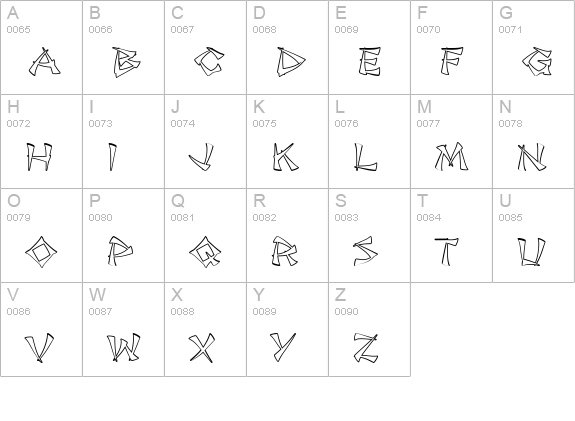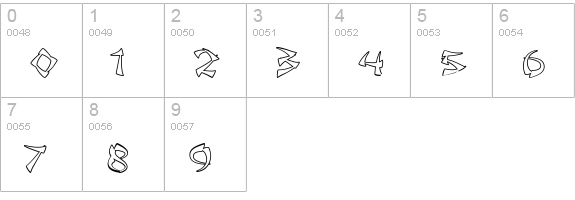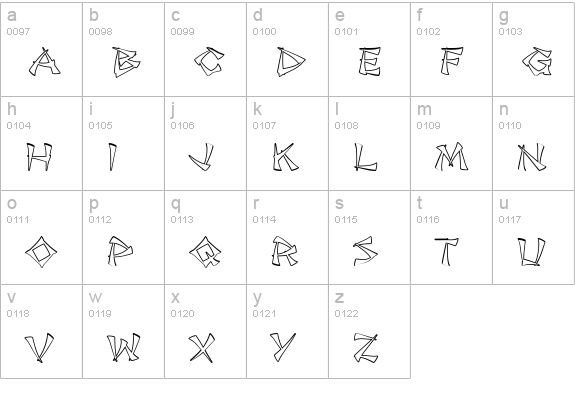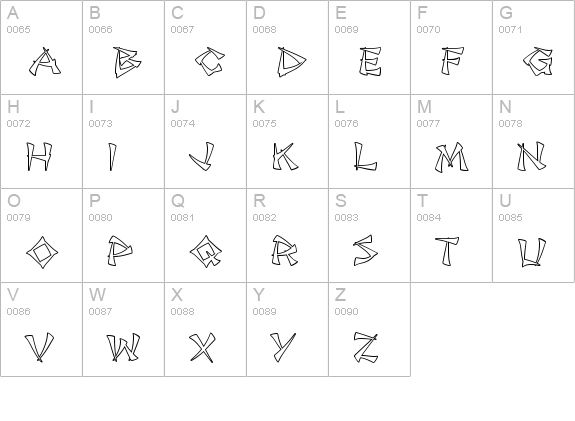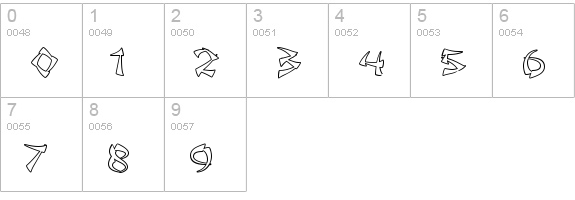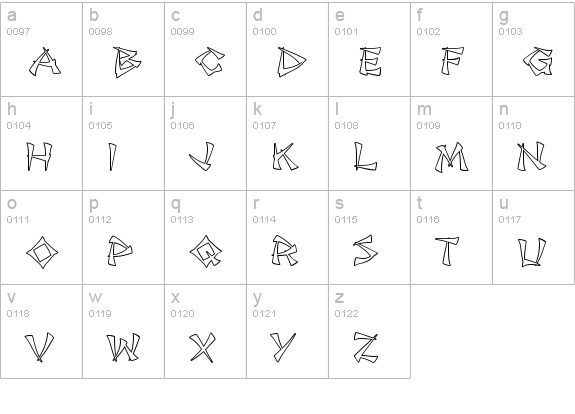
The Jade Monkey BTN Outline font is a stunning display typeface that is sure to catch the eye and add a touch of elegance to any design project. With its intricate and beautifully crafted outline style, this font exudes a sense of sophistication and modernity. What sets the Jade Monkey BTN Outline font apart is not only its exquisite design, but also the fact that it is available for free download. That's right, you can easily get your hands on this amazing font without having to spend a dime. Simply head over to FontsMarket.com, where you can freely download the Jade Monkey BTN Outline font and start using it in your creative endeavors. Whether you're designing a logo, creating a brand identity, or working on a poster or flyer, the Jade Monkey BTN Outline font will add a touch of uniqueness and professionalism to your project. Its clean lines and precise outlines make it highly versatile and suitable for a wide range of design purposes. The Jade Monkey BTN Outline font is designed with legibility in mind, ensuring that your message is communicated clearly and effectively. Its bold and distinctive appearance captures attention and makes a statement, making it perfect for headlines, titles, and any other text that needs to stand out. So why wait? Take advantage of the opportunity to freely download the Jade Monkey BTN Outline font from FontsMarket.com and elevate your design projects to new heights. With its combination of elegance, versatility, and affordability, this font is a must-have for any designer or creative professional looking to make a lasting impression.